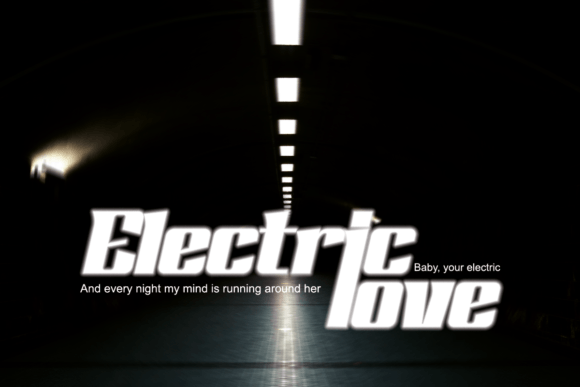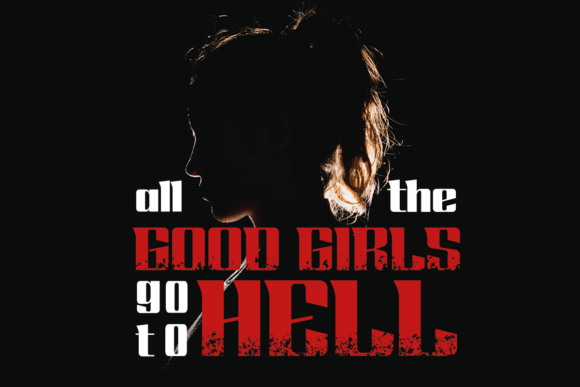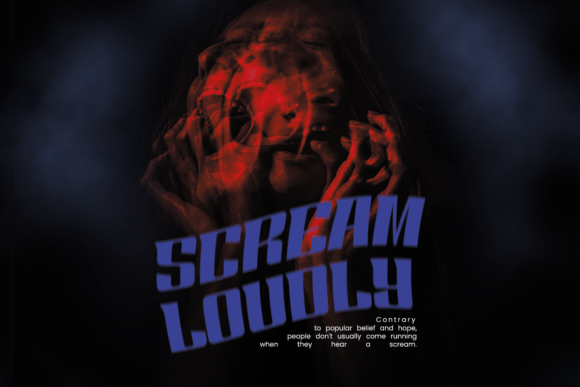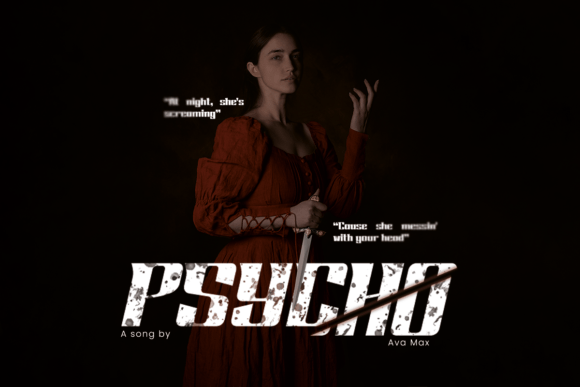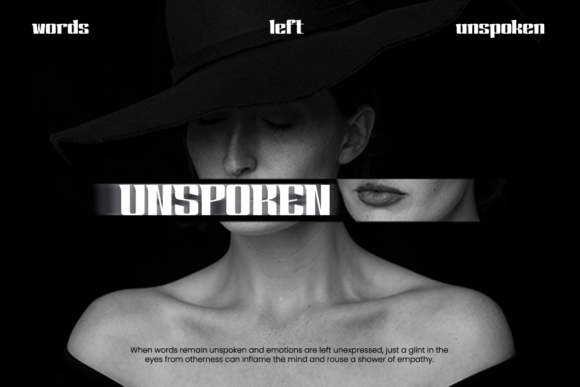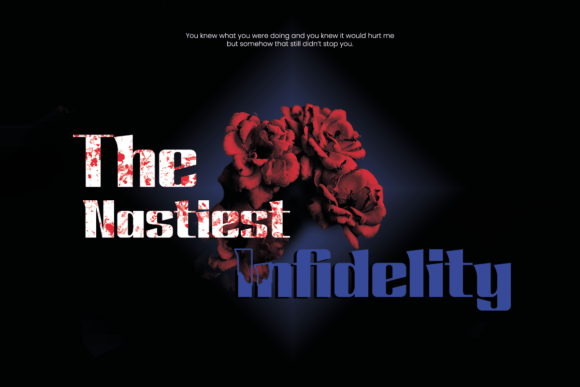
Introduction to Lucifer Font
As a designer, there’s nothing quite like the thrill of a blank canvas, waiting to be transformed into a stunning visual masterpiece. You’ve got a vision, a concept, and a blank background – what’s missing is the perfect font to bring it all to life. That’s where the Lucifer Font comes in, a modern display font that’s designed to elevate your creative project and make it truly unforgettable.
Whether you’re working on a branding project, crafting a logo, or simply adding a touch of style to your social media posts, the Lucifer Font is the perfect design resource to have in your arsenal. With its sleek, high-quality aesthetic and PUA encoded glyphs, this font is sure to impress – and with a free download available, you can get started right away on your next creative project.
- Unique, hand-drawn design style, setting it apart from more generic font options.
Honest Review: Lucifer Font
I recently stumbled upon the Lucifer Font and was excited to dive in and see what it had to offer. As a designer, I’m always on the lookout for high-quality design resources to enhance my creative projects. And let me tell you, this font did not disappoint!
Overall, I’m really impressed with the Lucifer Font and would definitely recommend it to fellow designers. While it may have a few limitations, the high quality and versatility make it a great addition to any design resource library.
The Lucifer Font is ideal for creative projects, such as logos, social media graphics, presentations, and documents. Its high-quality design and transparent background make it a versatile resource for designers and non-designers alike.